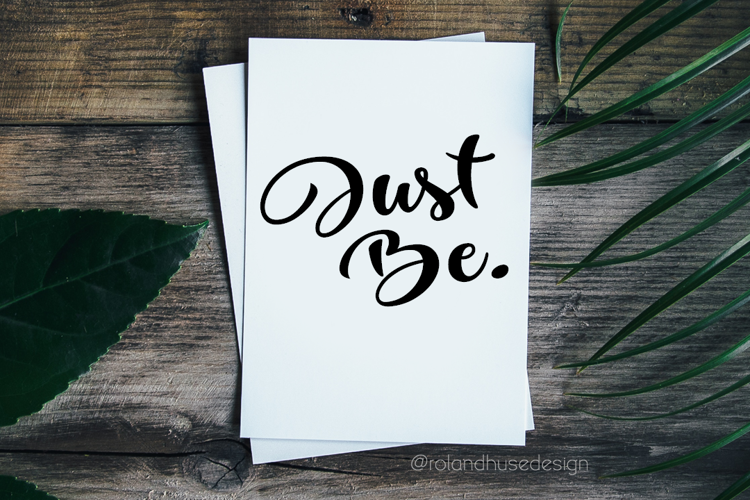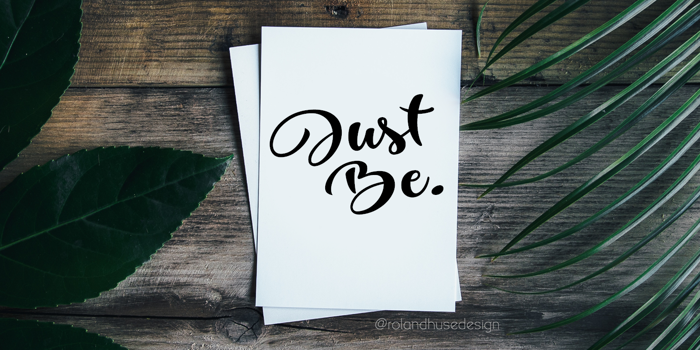
Just Be Demo Font
About Just Be Demo Font
JUST BE is a playful brush script. Perfect for titles, headings and logotypes for blogs, products and lifestyle imagery (like quotes and stuff).